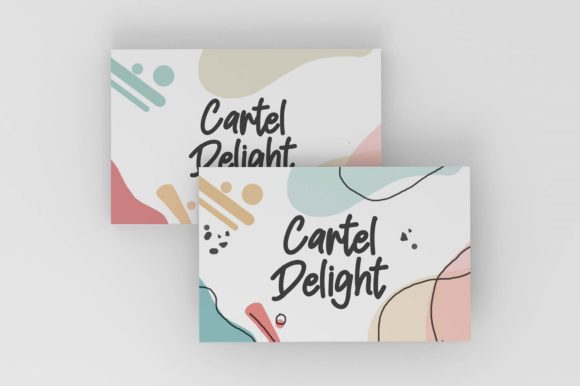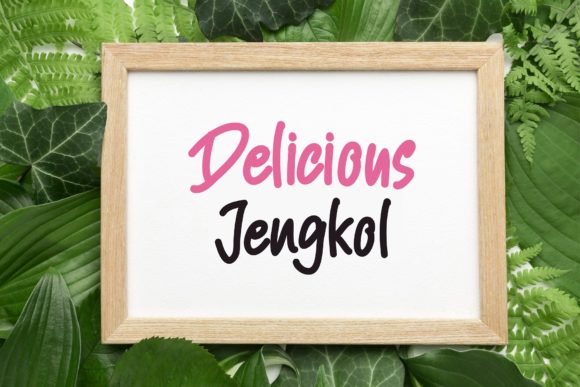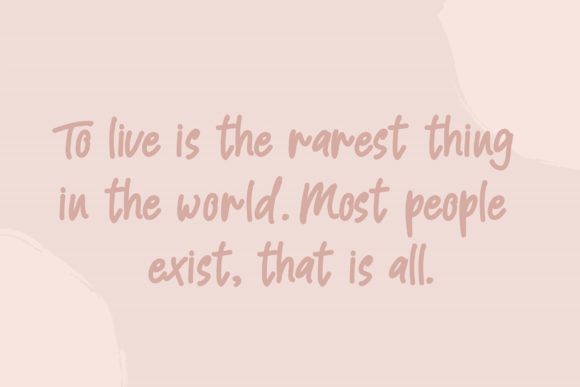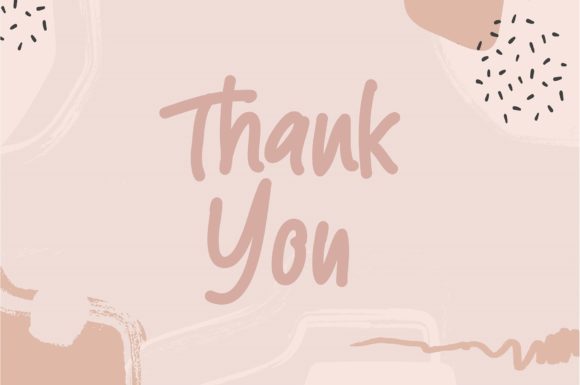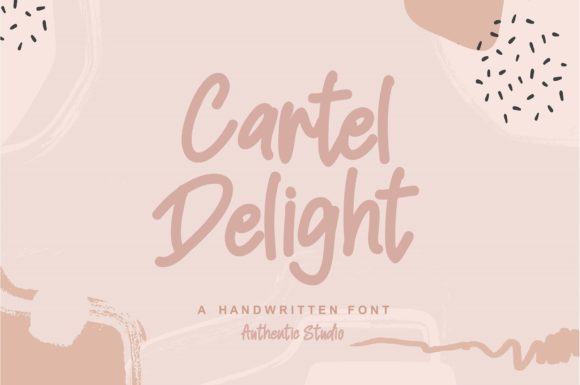
Introducing Cartel Delight Font: The Whimsical Handwritten Font for Creative Minds
Are you a designer, crafter, or social media enthusiast looking for a font that can add a touch of whimsy and charm to your creations? Look no further than Cartel Delight Font! This beautiful, handwritten font is perfect for anyone who loves creating cute and lovely crafts, designs, cutting, printing, social media posts, and more.
What is Cartel Delight Font?
Cartel Delight Font is a unique and playful handwritten font that is sure to capture the hearts of designers and crafters alike. Its whimsical and curly design makes it perfect for creating eye-catching titles, headings, and text that will make your projects stand out from the crowd.
Features of Cartel Delight Font
- Whimsical Handwritten Design: Cartel Delight Font features a beautiful, handwritten design that is both playful and elegant.
- Easy to Read: Despite its curly and whimsical design, Cartel Delight Font is easy to read, making it perfect for use in a variety of projects.
- Versatile: Cartel Delight Font can be used in a wide range of projects, from crafts and designs to cutting, printing, and social media posts.
- High-Quality: Cartel Delight Font is a high-quality font that is designed to produce crisp and clear results, even at small sizes.
Uses of Cartel Delight Font
Cartel Delight Font is a versatile font that can be used in a wide range of projects, including:
- Crafts: Use Cartel Delight Font to add a personal touch to your crafts, such as scrapbooking, card making, and DIY projects.
- Designs: Add a touch of whimsy to your designs, such as posters, flyers, and brochures.
- Cutting and Printing: Use Cartel Delight Font for cutting and printing projects, such as vinyl signs, stickers, and iron-on designs.
- Social Media Posts: Add a playful touch to your social media posts, such as Instagram captions, Facebook posts, and Twitter updates.
Benefits of Using Cartel Delight Font
Using Cartel Delight Font in your projects offers a range of benefits, including:
- Unique and Eye-Catching: Cartel Delight Font is a unique and eye-catching font that will make your projects stand out from the crowd.
Cartel Delight Font is a beautiful and versatile handwritten font that is perfect for designers, crafters, and social media enthusiasts. Its whimsical and curly design makes it perfect for creating eye-catching titles, headings, and text that will make your projects stand out from the crowd. With its ease of use, high-quality design, and cost-effectiveness, Cartel Delight Font is a great addition to any design library.